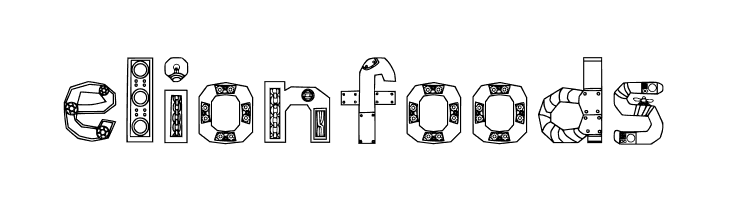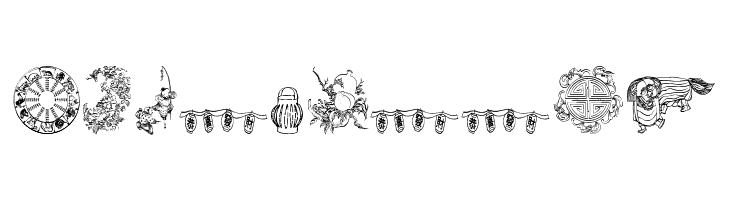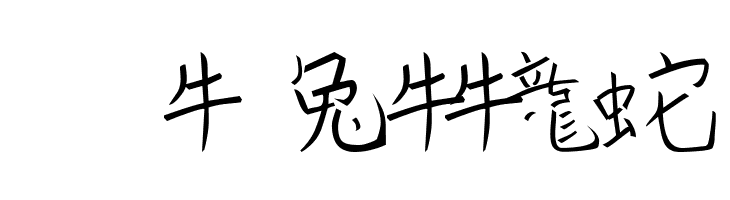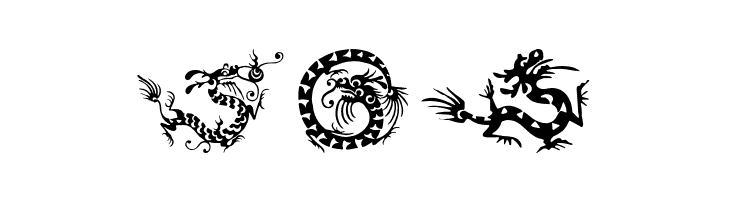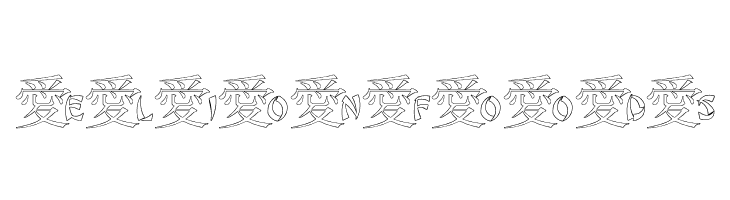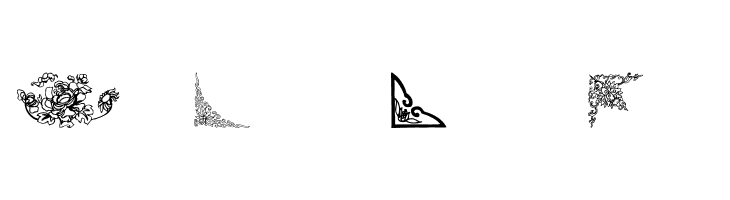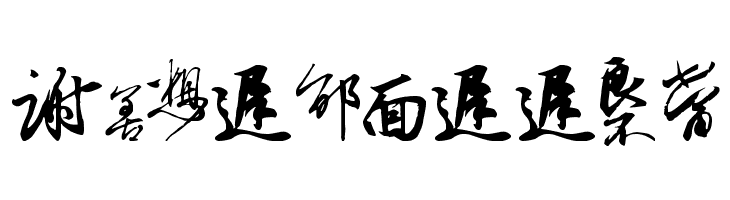
A decorative font inspired by the Chinese Zodiac, featuring intricate animal designs within circular forms.
A decorative font inspired by traditional Chinese dragons, featuring intricate and bold designs.
An ornate font with intricate Chinese-inspired motifs and decorative elements.
A fluid and expressive calligraphy font inspired by traditional Chinese brush writing.
A decorative font featuring artistic representations of the Chinese zodiac animals.
A steampunk-inspired font with intricate machinery and industrial design elements.
A bold, 3D font with a playful, cartoonish style and thick outlines.
A bold, three-dimensional font with a playful and dynamic appearance.
Iconic dingbat font showcasing Chinese cultural symbols.
A bold, decorative font with intricate, layered designs and a modern flair.
A bold, industrial font with a distressed, mechanical design.
A pictogram dingbat set themed around Chinese culture.
A decorative font with intricate Chinese zodiac-inspired designs.
A decorative font inspired by Kachina dolls, featuring intricate and artistic characters.
A bold, vintage-style font with a rugged, hand-crafted appearance.
A bold, playful font with rounded, whimsical characters.
A bold, expressive handwritten font with brush-like strokes.
A decorative font with intricate dragon motifs forming each character.
A decorative font with intricate Chinese-inspired motifs and monogram-style frames.
A decorative font combining Chinese motifs with modern monogram style.
A decorative monogram font with Chinese-inspired circular borders around bold capital letters.
A whimsical and decorative font with playful embellishments and high contrast strokes.